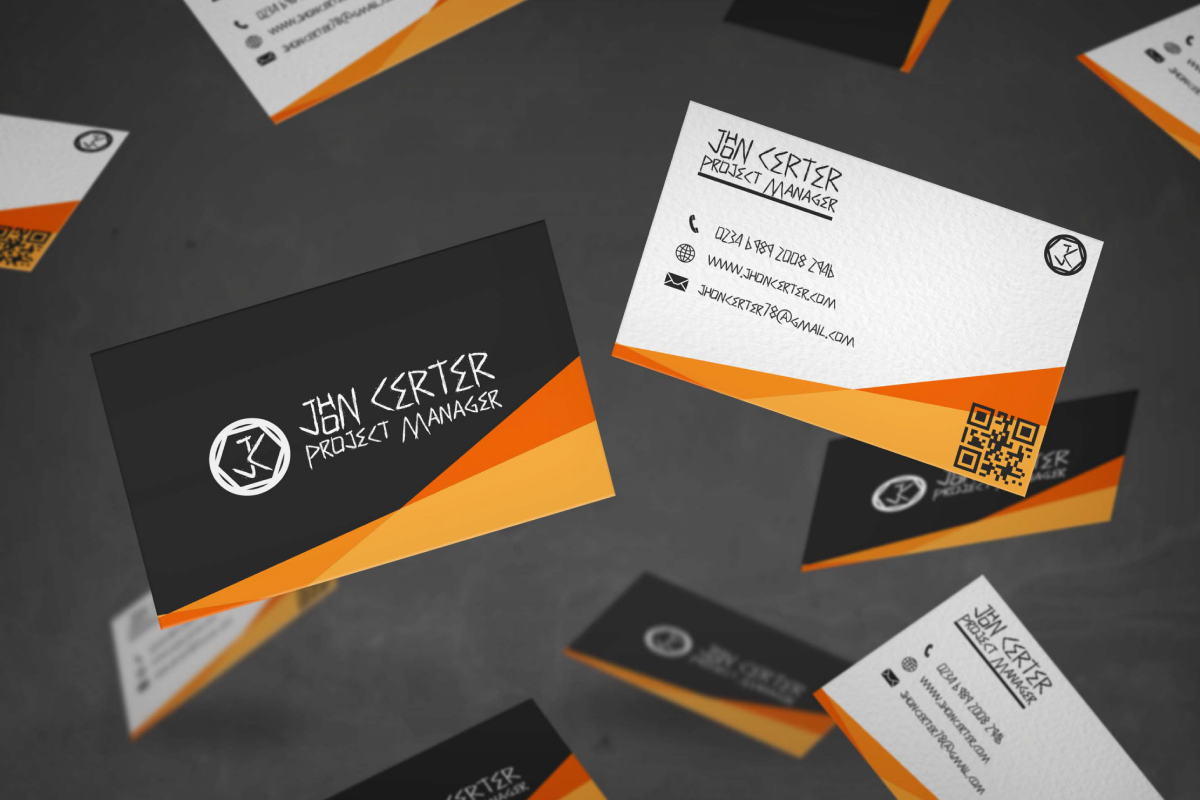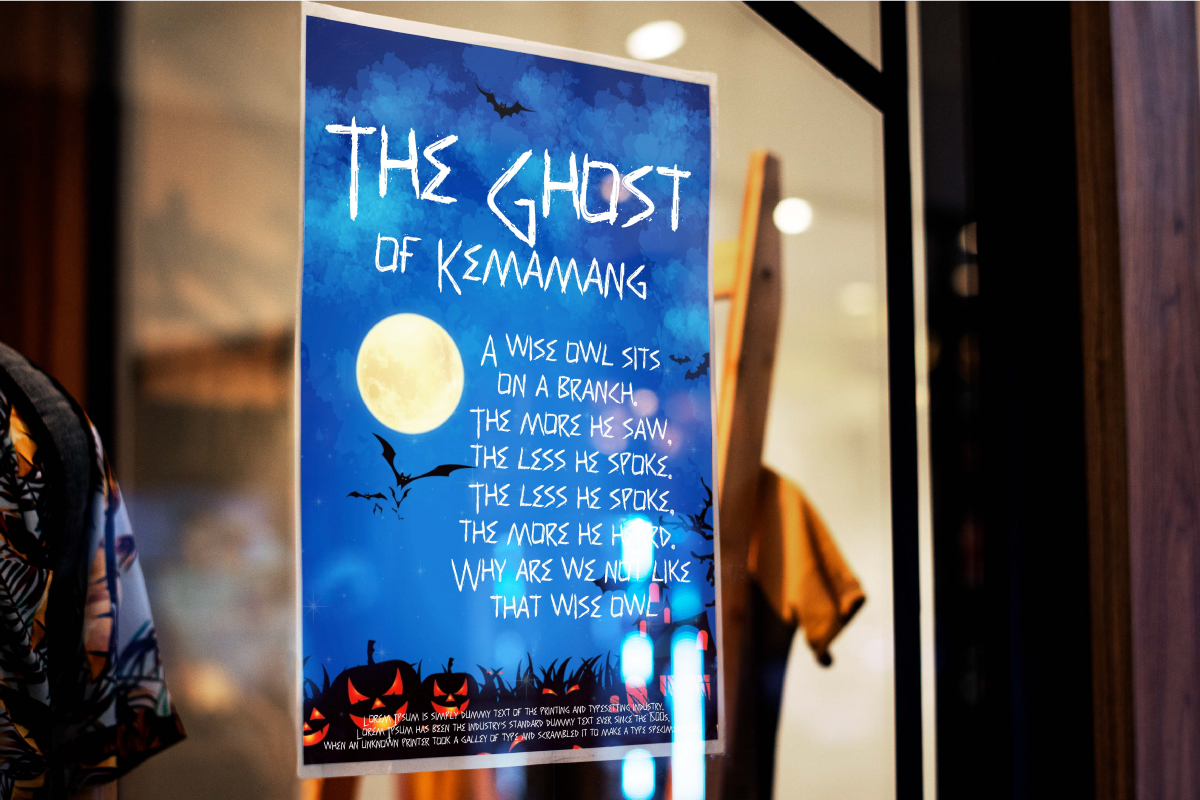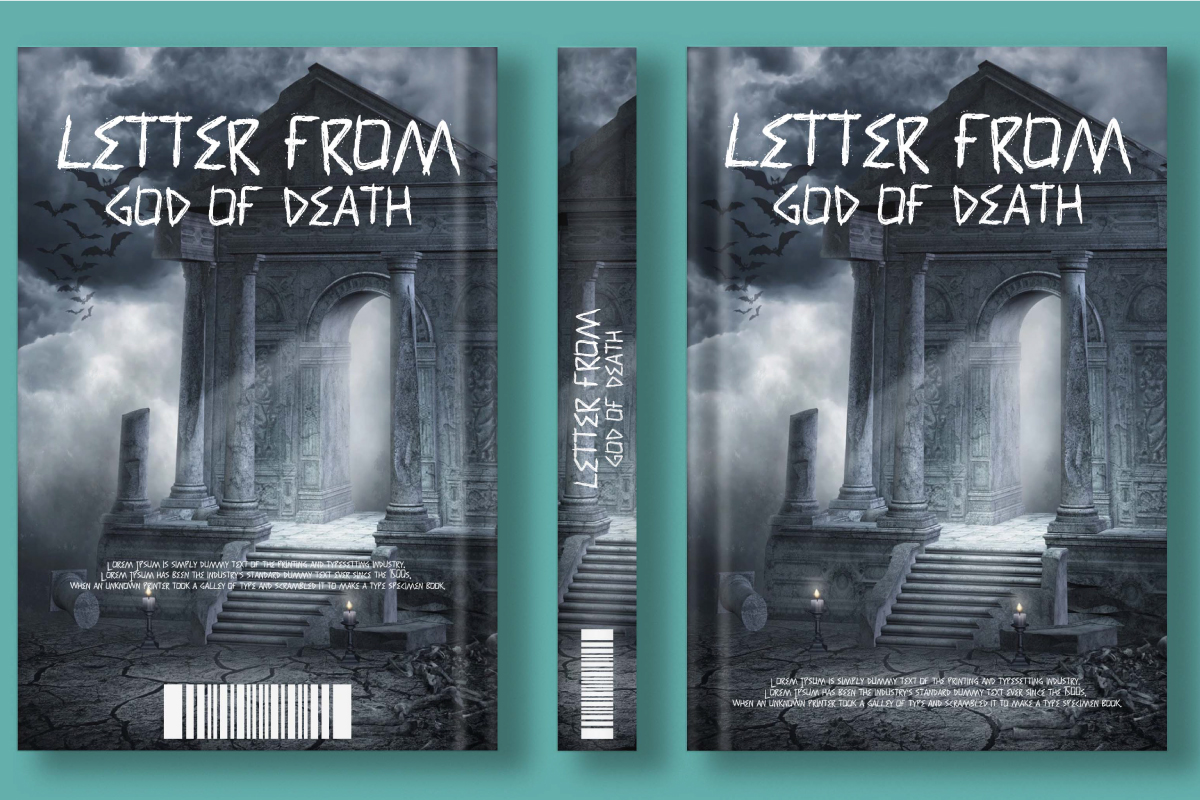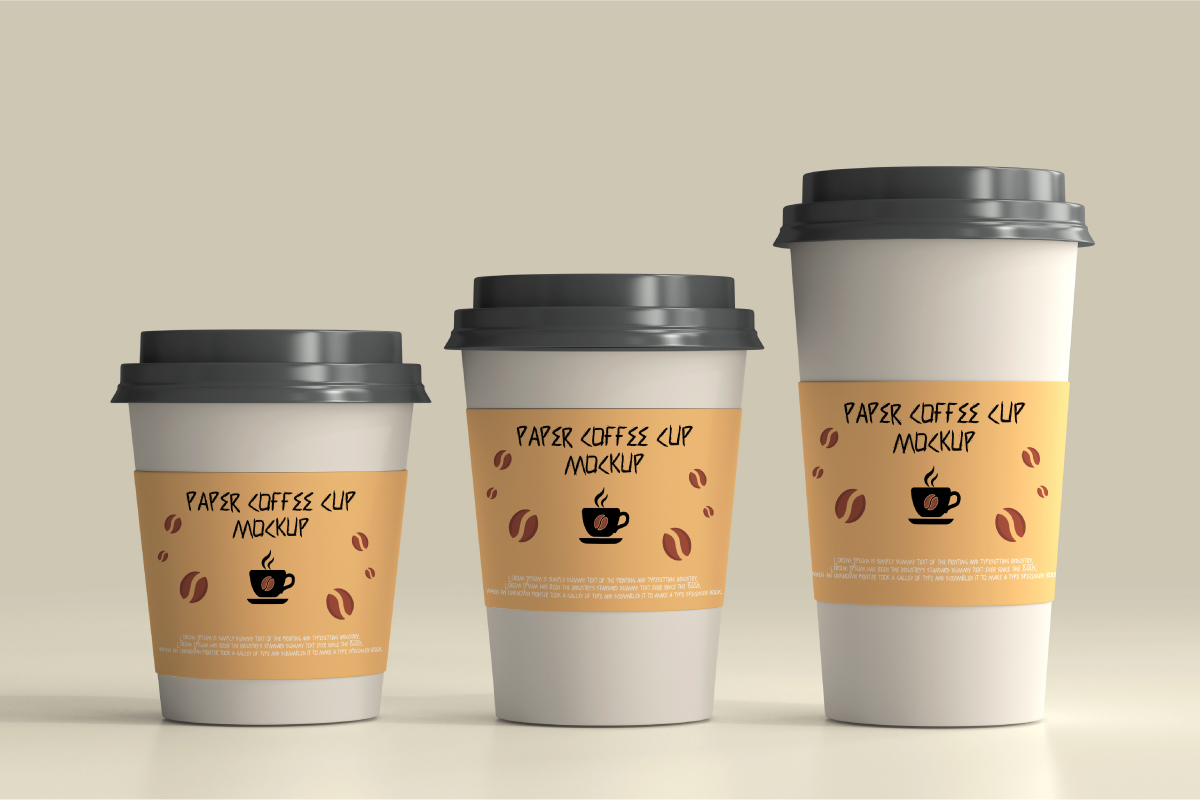
Horor Drama Font
Horor Drama Display Font
It’s a spooky yet fun display font created by Noahtype. This font has a horror texture that adds a spooky feel to your horror themed projects, basically inspired by horror drama. It will be suitable for many industry: author, broadcasting, café, fashion, festival, food brand, movie, publishing, and many more.
Horor Drama Font includes set of Uppercase and Lowercase Basic Characters, Numerals and Punctuation. Also it contains alternate and ligature characters options that you can select and use to make it standout. This font will be perfect for your projects that need a mysterious vibe such as billboard, blog headers, brochure, business card, creating logo, custom printing, flyer, headline, invitation, label, poster, product packaging, signage, etc.